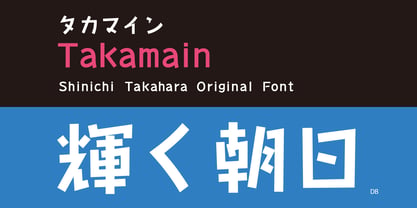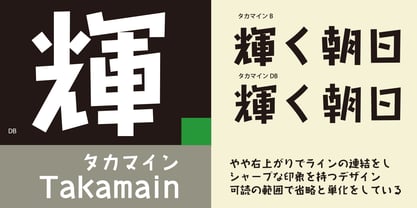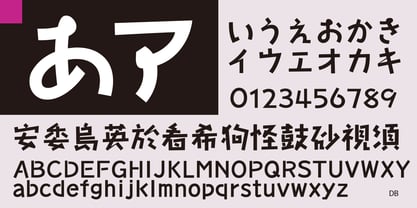
The Takamain Font Family was designed by and published by Taka Design Production. Takamain contains 2 styles and family package options. More about this family
It is an original typeface with a sharp impression characterized by a slightly right ascending line and connecting lines. The elements are not standardized, but rather are uniquely abbreviated and simplified to the extent that they are readable.